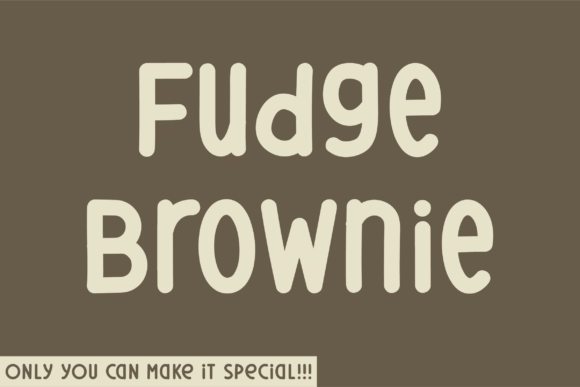
Introducing Fudge Brownie Font, the paw-fect font for your pet-loving business! This adorable sans serif font was handcrafted with love, ensuring each character's unique charm.
With Fudge Brownie, you'll capture the playful essence of your furry friends. Unleash your creativity and create heartwarming quotes that resonate with pet lovers. Craft paw-some notes that brighten their day. Design eye-catching tees that celebrate the bond between people and their pets.
Fudge Brownie's natural beauty shines through in every product design. Its organic curves and subtle indentations add a touch of whimsy to any project. Whether you're creating packaging, pet accessories, or online content, Fudge Brownie will make your designs irresistible.